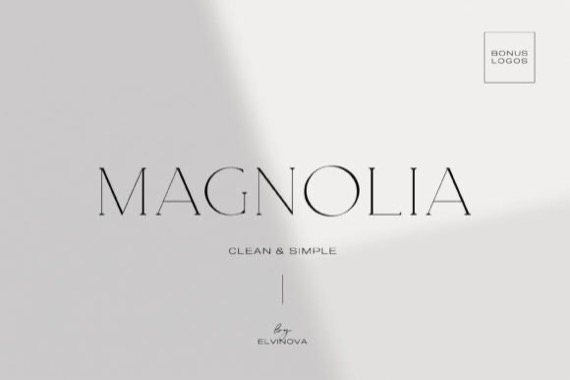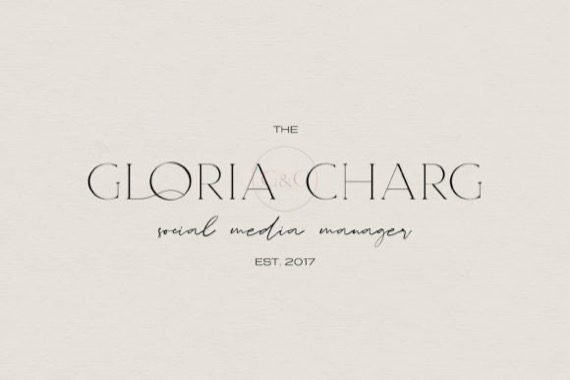
Magnolia is an elegant and modern serif font that was created and released by Elvinova. Its smooth and cool lines create a sense of motion and classy. Elegant all-caps font with feminine bonus logos.
Magnolia Serif Font